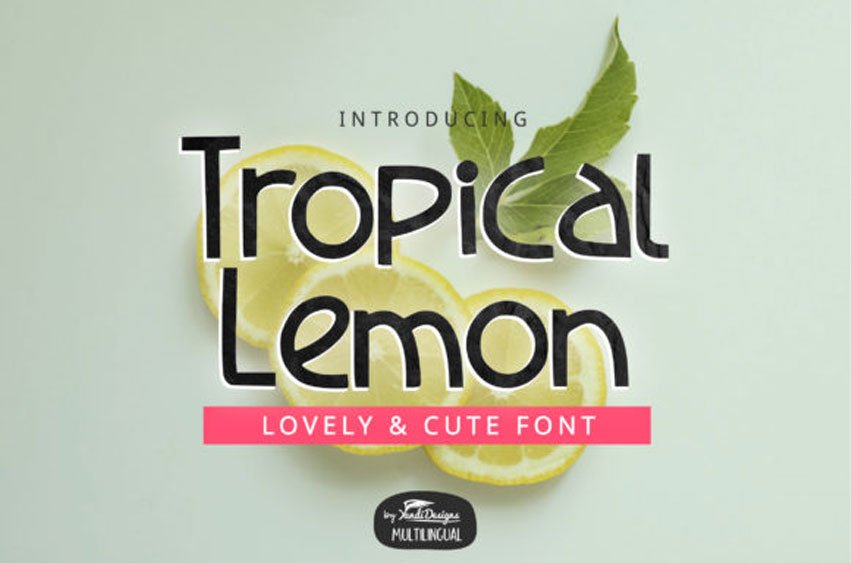
Tropical Lemon Font is a minimalistic and neat sans serif font.
No matter the topic, this font will be an incredibly asset to your fonts’ library, as it has the potential to elevate any creation.